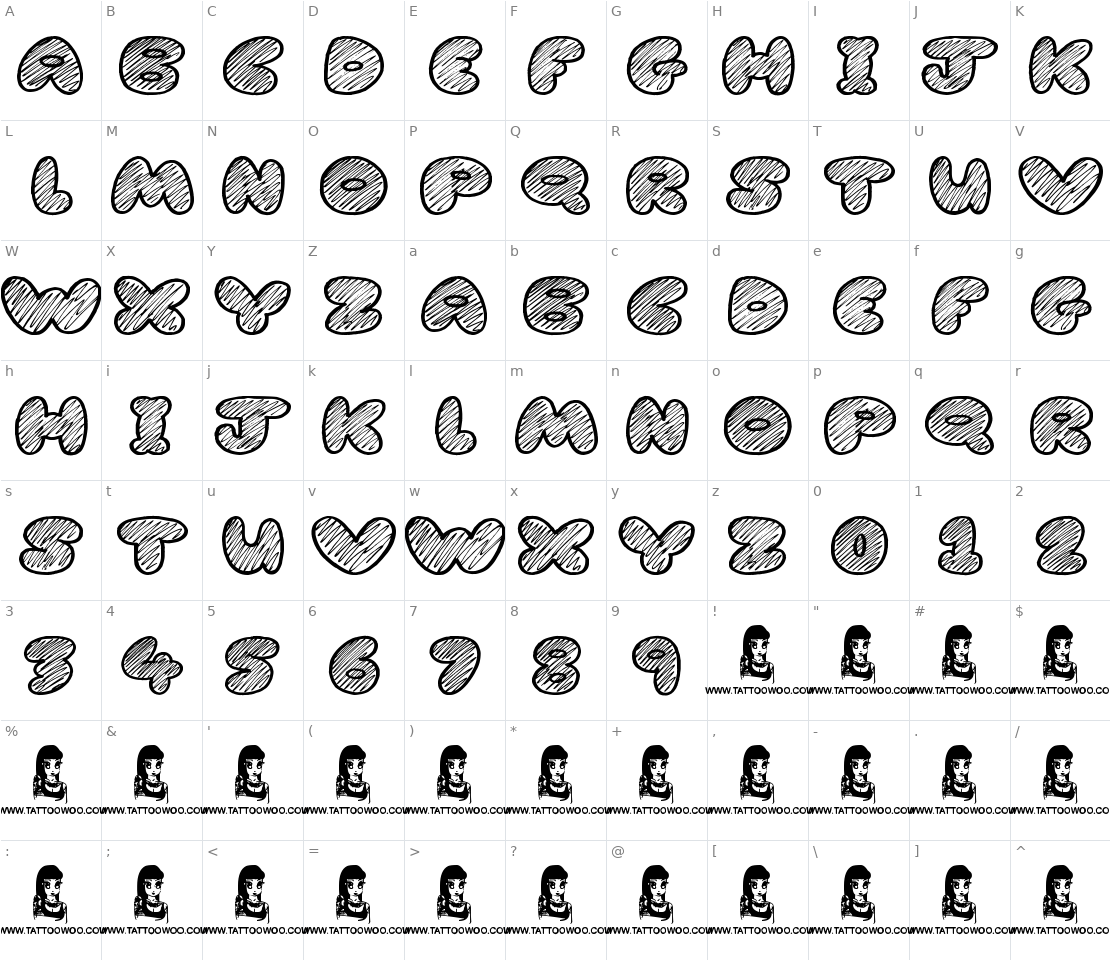
Cartoon Madness
Cartoon Madness is a sketchy, bubble-shaped comic face from Jonathan S. Harris with visible hatching lines built right into the letterforms, giving each character the look of a hand-drawn doodle rather than clean vector art. The rounded shapes keep things playful and lighthearted, while the crosshatch texture adds a layer of personality you don't usually see in cartoon fonts. Best for headlines, posters, and children's content where you want something that feels like it was scribbled in a sketchbook.